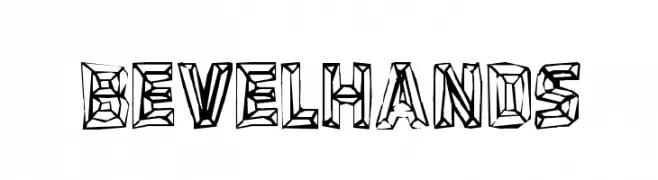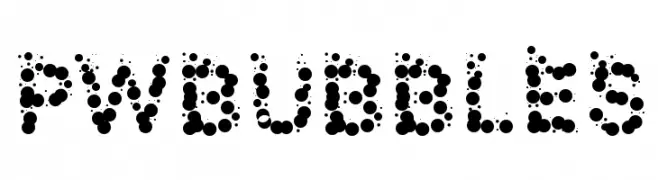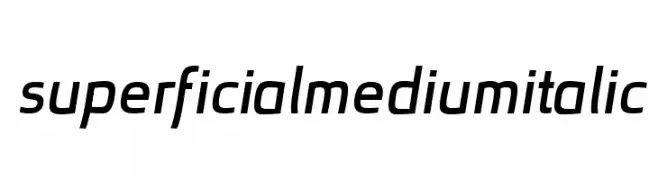
A modern, italic font with clean lines and a dynamic appearance.
A playful font with characters made from bubble-like circles, offering a whimsical and dynamic style.
A decorative font with characters enclosed in flower-like shapes, offering a playful and vibrant style.
A modern, geometric font with rounded edges and a clean, minimalistic style.
A modern, italicized font with clean lines and a dynamic appearance.
A bold, classic serif typeface with strong, elegant serifs and balanced proportions.
A modern, italic font with clean lines and balanced proportions.
A bold, geometric font with a 3D beveled design and strong industrial feel.